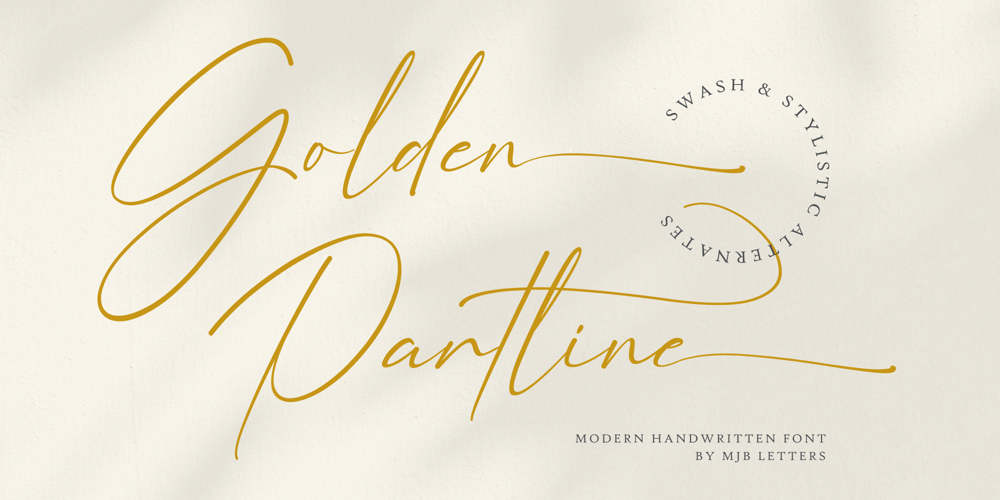
Golden Partline Font Family was designed by Muhammad Mujibulloh and published by MJB Letters. Golden Partline contains 1 styles and family package options. Golden Partline is a modern handwritten font with strong characters in each letter. This font also has several alternatives, ligatures, and swashes as a compliment that will make the design you create look more elegant and professional.This font is very suitable for branding, packaging, fashion design, logo design, wedding invites, wedding invitations, posters, and more.To use the beautiful swashes, you need a program that supports OpenType features such as Adobe Illustrator CS, Adobe Photoshop CC, Adobe Indesign, and Corel Draw. but if your software doesn’t have Glyphs panel, you can install additional swash font files:if you have questions about the latest fonts, please provide a short message to usThank You!MJB Letters